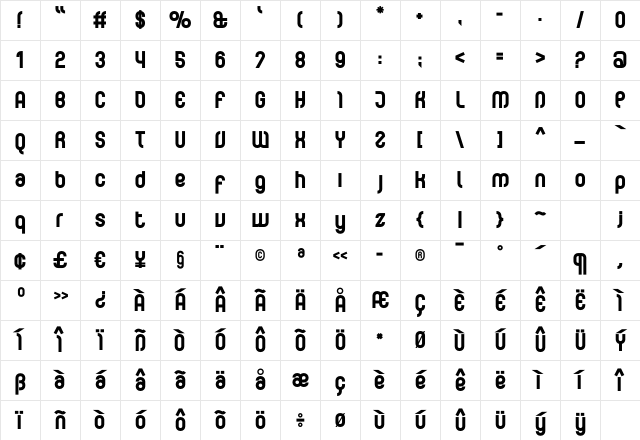
Curvature-Black Regular
Design Context for Curvature-Black
Curvature-Black is a composed and adaptable typeface that performs quietly and consistently across a wide range of design contexts.